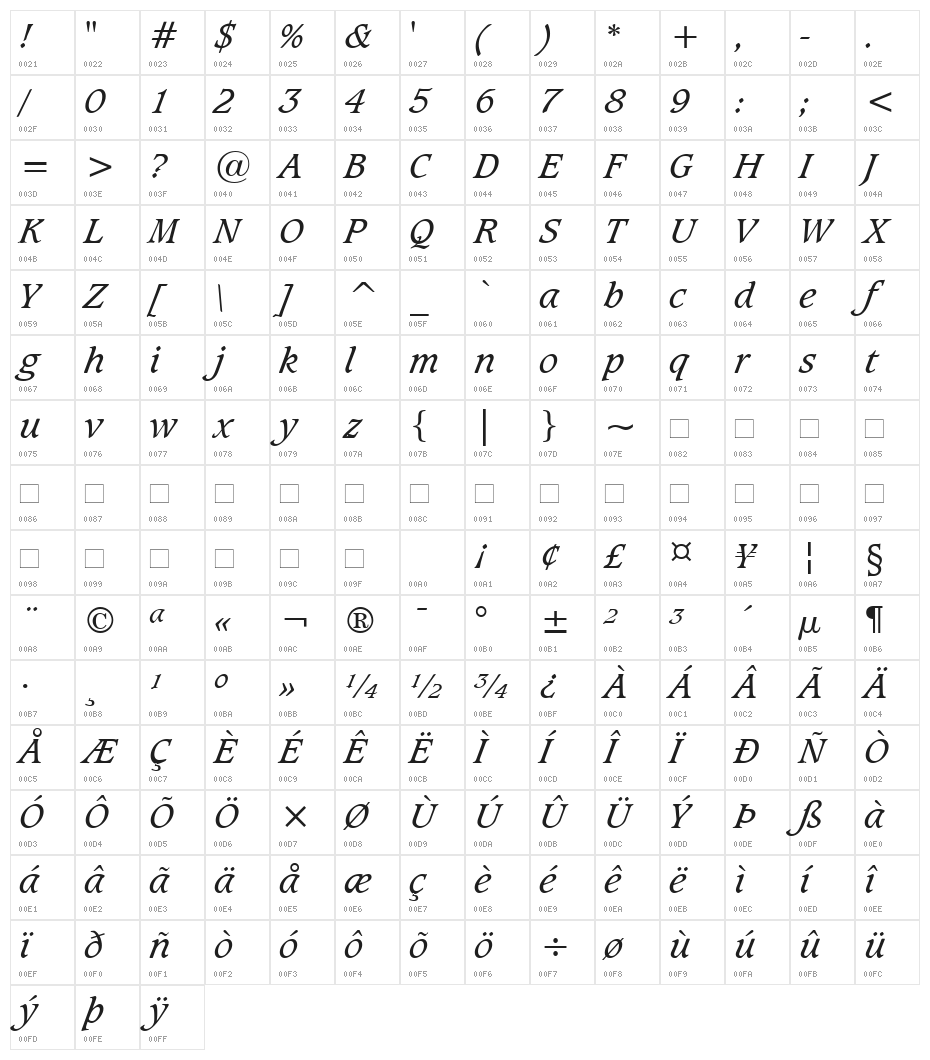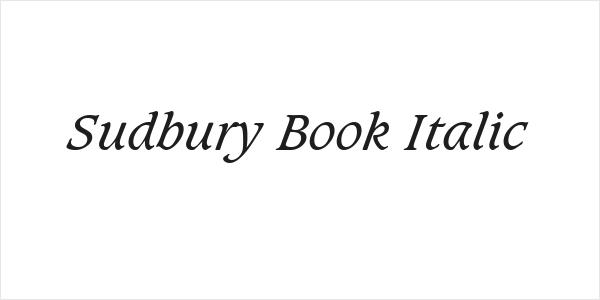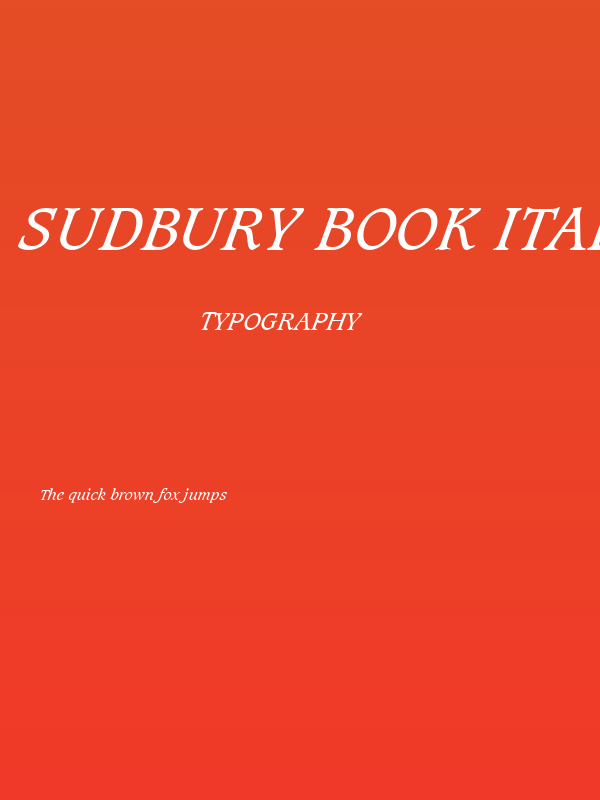
Sudbury Book Italic Font
Sudbury Book Italic Description
This font exudes a classic elegance with its italicized serif style, offering a refined and sophisticated appearance. The letterforms are gracefully slanted, providing a sense of movement and fluidity. The serifs are pronounced yet not overly ornate, maintaining a balance between tradition and readability. The font's structure is consistent, with moderate contrast between thick and thin strokes, enhancing its legibility. The numerals and special characters are designed to complement the alphabet, ensuring a cohesive look across all text elements. This font is ideal for projects that require a touch of class and timelessness.
| Proposed Projects | Ideal for formal invitations, editorial design, branding for luxury products, and elegant website headers. |